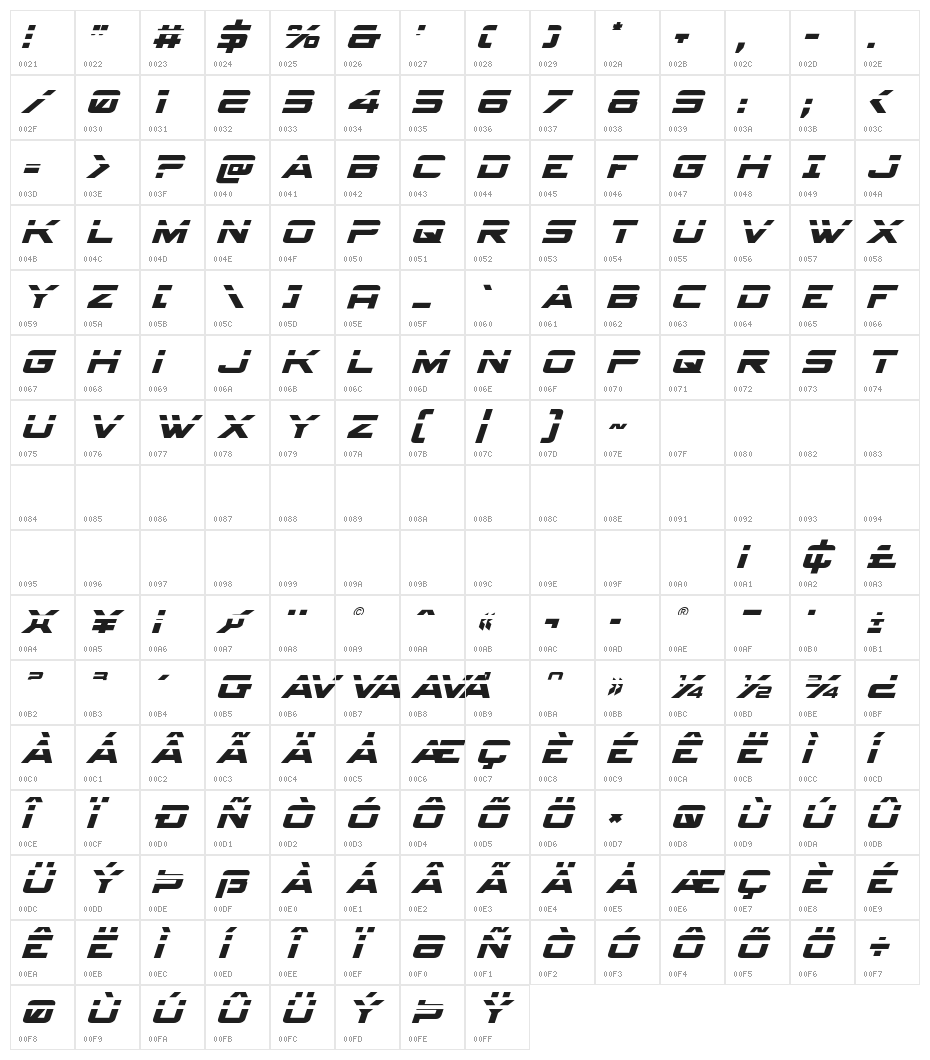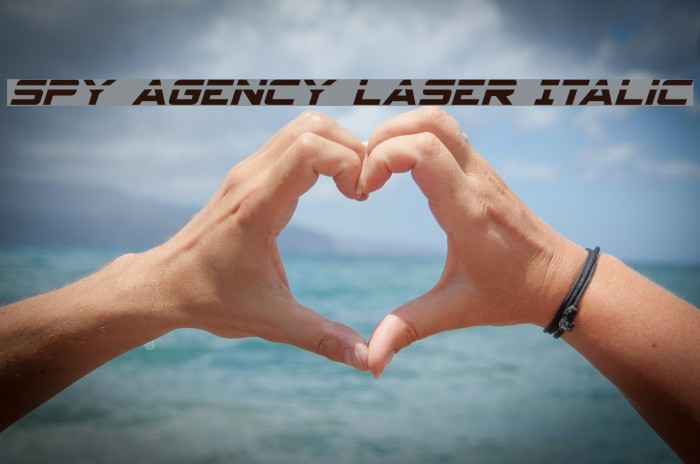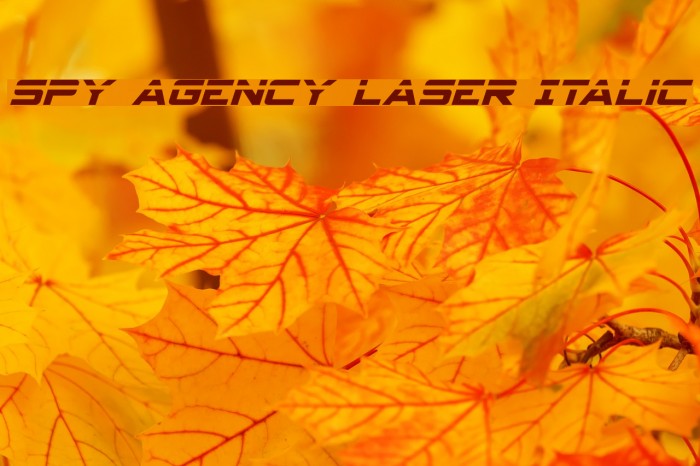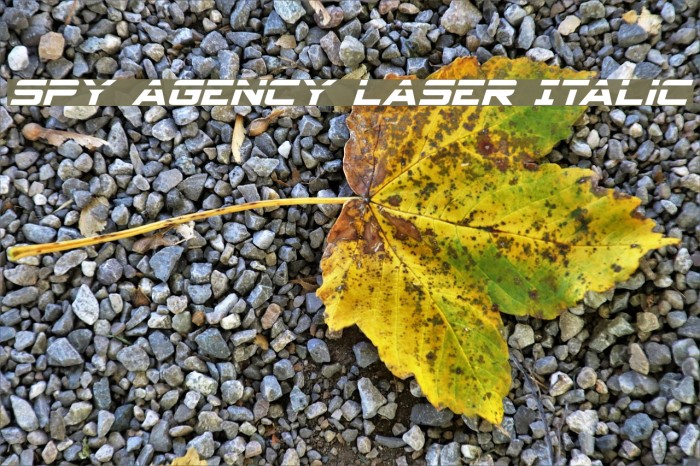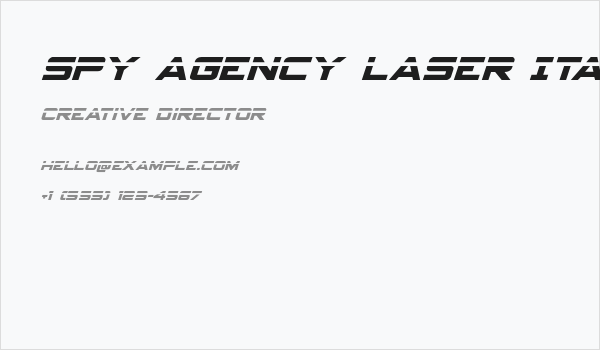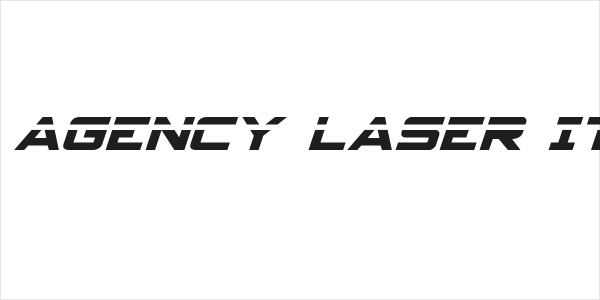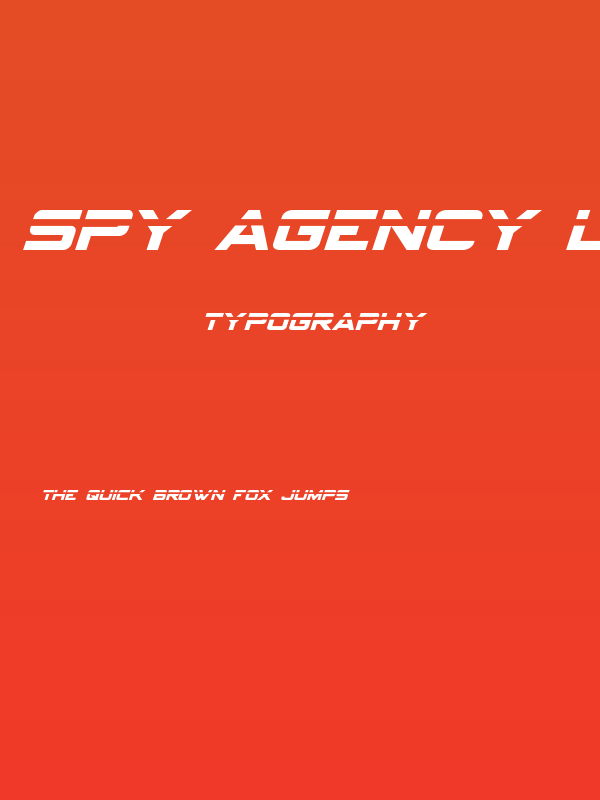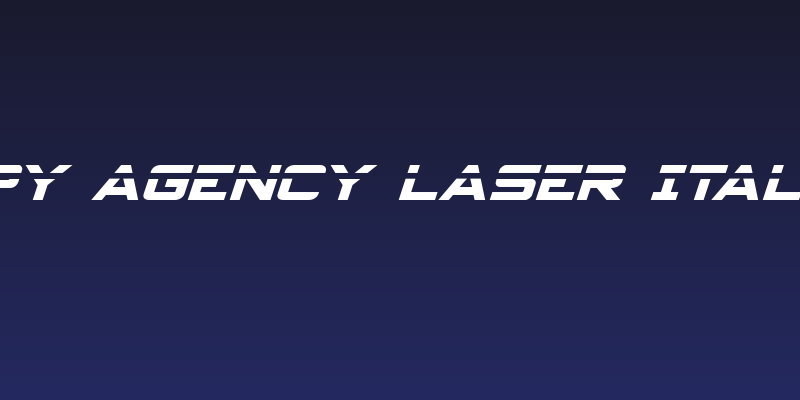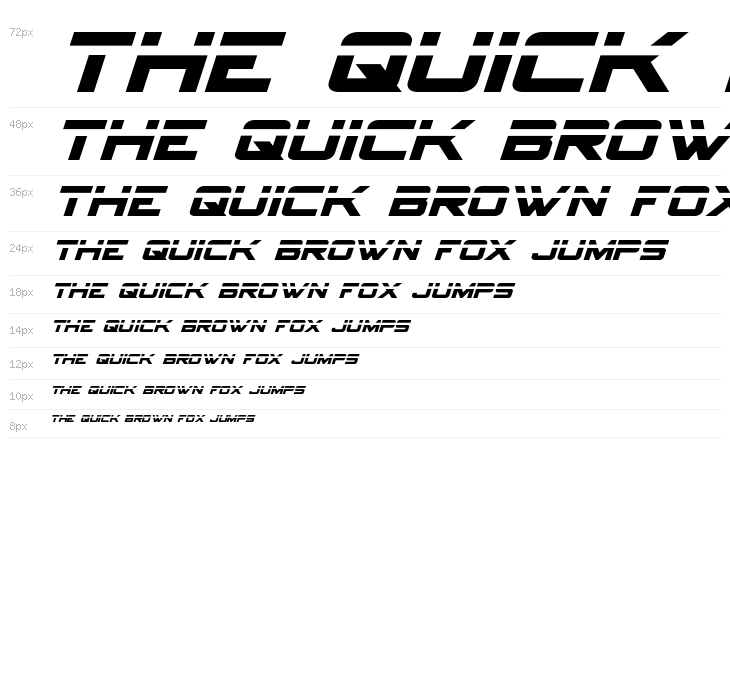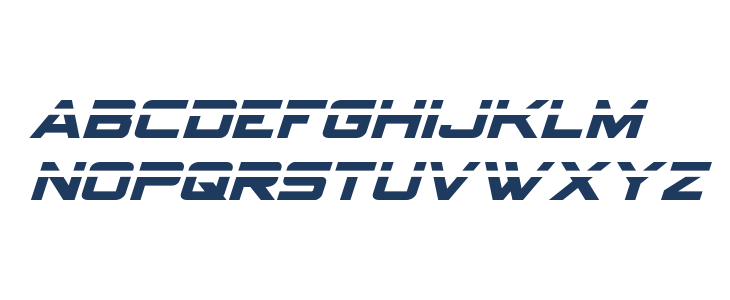
Spy Agency Laser Italic Font
Spy Agency Laser Italic Description
This font features a futuristic and dynamic design with sharp, angular edges and a distinct italic slant. The characters are bold and convey a sense of speed and modernity, making it ideal for projects that require a high-tech or cutting-edge aesthetic. The uppercase and lowercase letters maintain a consistent style, with the numbers and special characters following suit. The font's design is reminiscent of digital displays or sci-fi themes, offering a sleek and streamlined appearance.
| Proposed Projects | Ideal for technology branding, sci-fi movie posters, video game titles, and modern advertising campaigns. |